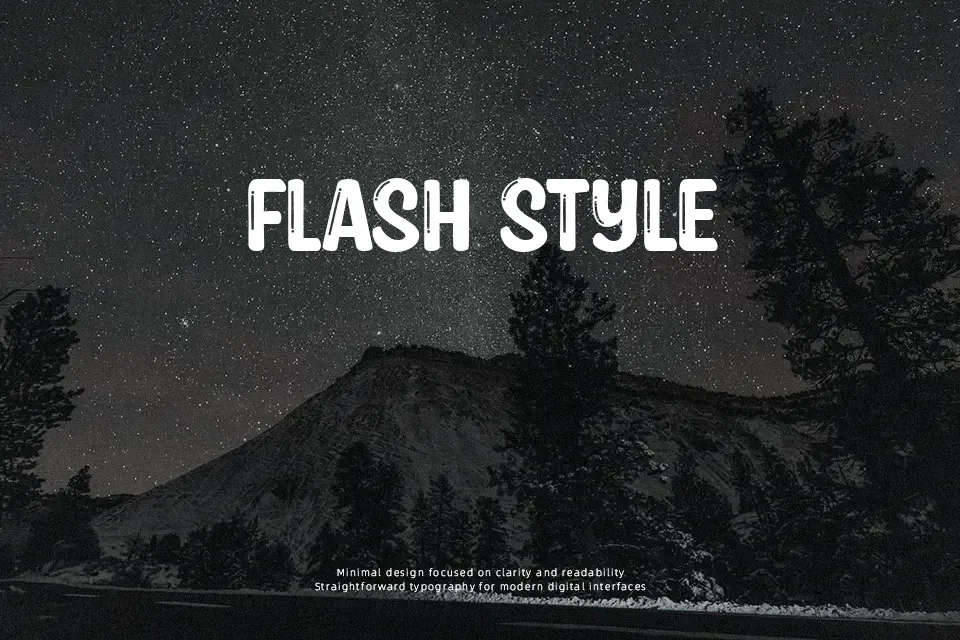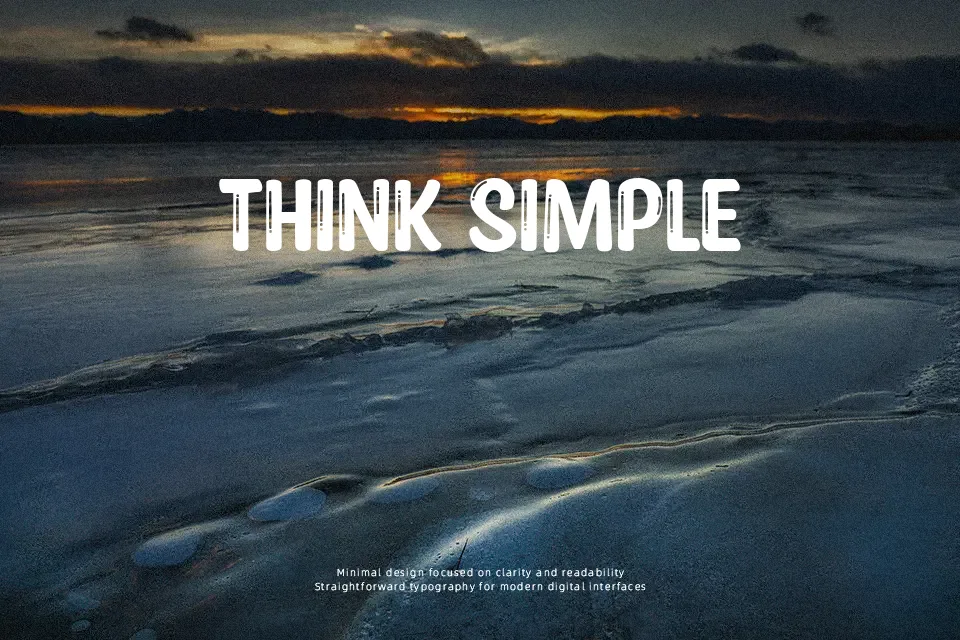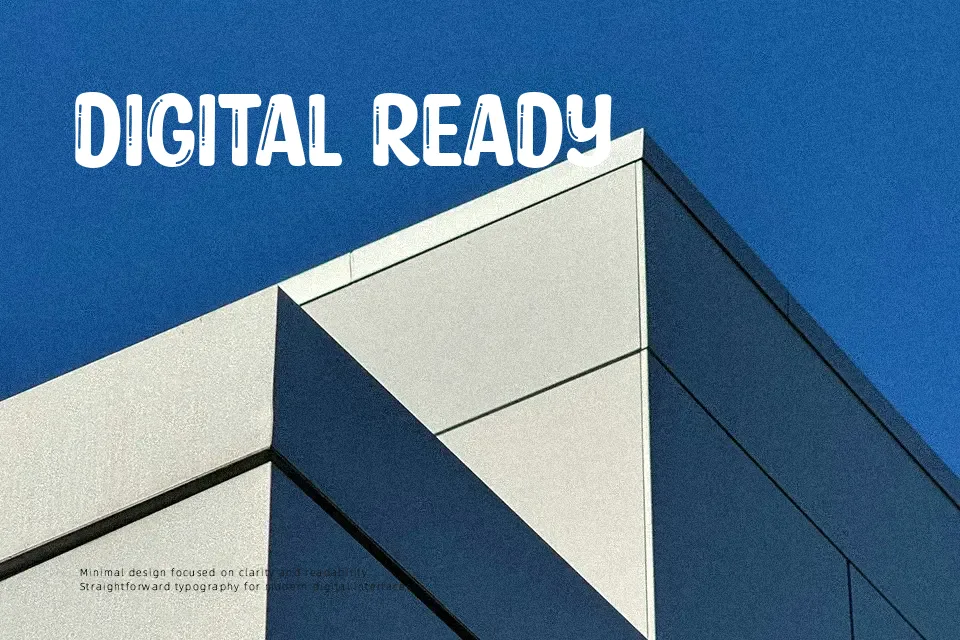
Stay And Shine Font
Designed by Brithos Type
Stay And Shine Font presents an ultra-bold display structure defined by plump curves, thick strokes, and integrated specular highlight cutouts that simulate a polished surface. The glyphs exhibit tightly set proportional spacing with consistent stroke weight across uppercase and lowercase forms, creating a cohesive, comic-inspired visual rhythm. Readability remains sharp at substantial scale, making the typeface exceptionally effective for animation title cards, festival posters, confection packaging, and arcade graphics. However, the heavy weight and decorative internal cutouts cause character forms to blur together at smaller sizes, making the design unsuitable for continuous body paragraphs, compact mobile interfaces, or technical documents.
Best For: children’s book titles, festival event posters, snack food packaging, cartoon logos
Not Ideal For: continuous body paragraphs, corporate annual reports, small mobile ui labels, legal disclaimers
Perfect for branding, headline, and kids, with a bold and cartoon style.